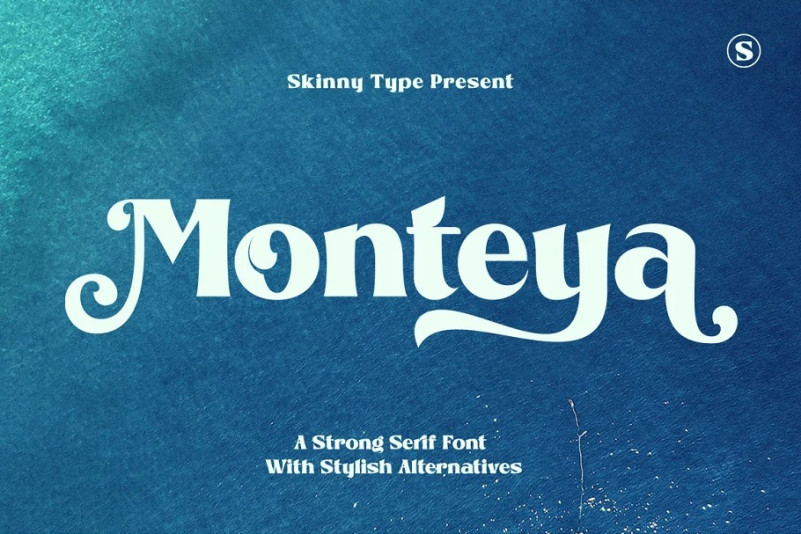
Monteya Serif Font – a modern serif with vintage charm, fashion look and retro yet modern style. Work fast using integrated features. This feature works on most applications (Canva, Templett, Corjl and others)
Opentype Serif font with clean shapes and accurate kerning. It includes ligatures and alternates with total amount 570 PUA encoded glyphs. And include feature in : Uppercase, Lowercase, Numeral, Punctuation, Ligatures, and Alternates.
Modern Serif with chunky imperfect edges and shabby appearance. This font is a strict copy of everything from regular version including glyphs names, kerning and ligatures, so you are worry-free to change style on the go. Alternates appears automatically when you type plus after any letter or even ligature.